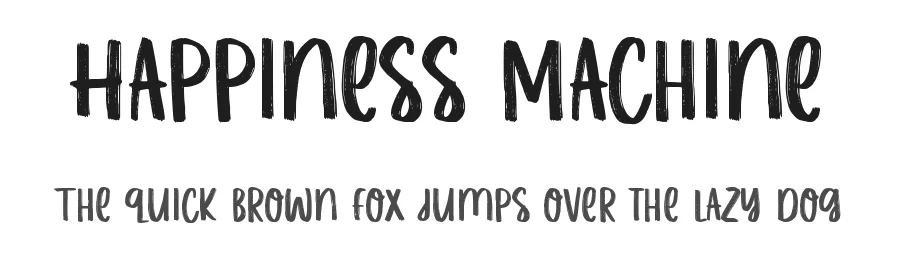
About Happiness Machine Script Font
Happiness Machine Script Font is a script font that shines as a display or heading face. Pair it with a clean sans-serif or serif font for body text β the contrast creates a clear hierarchy while the two styles stay balanced and easy to read.